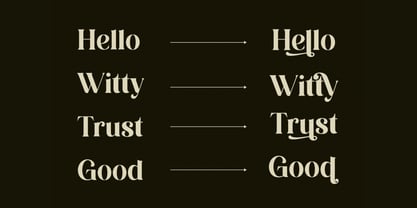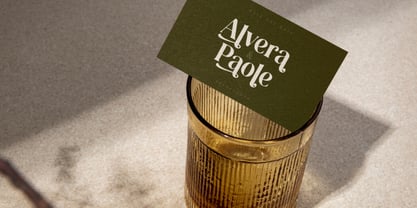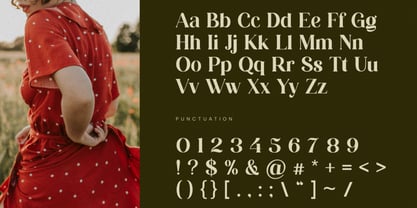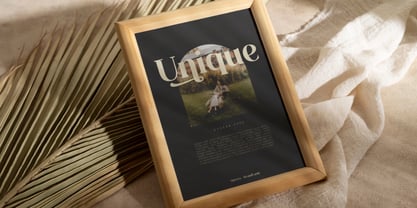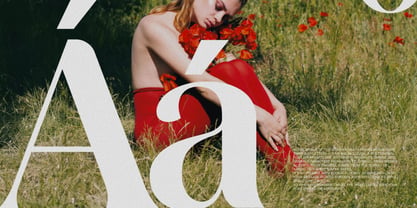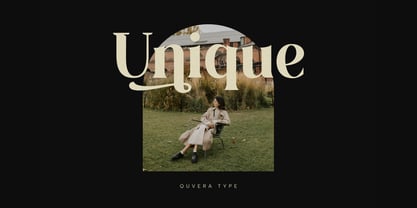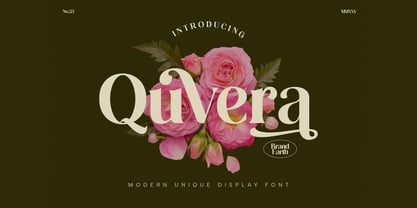
Quvera
by Brandearth
The Quvera Font Family was designed by Moch Rasjid Wiyono and published by Brandearth. Quvera contains 1 styles. More about this family
Quvera is a modern unique display serif crafted to bring expressive elegance and artistic distinction to contemporary design. With its refined high-contrast strokes, sculpted serifs, and beautifully curved swash alternates, Quvera blends classic sophistication with a bold creative personality. Quvera is perfect for luxury branding, fashion campaigns, beauty and skincare packaging, boutique logos, wedding invitations, lifestyle editorials, and high-end social media visuals. Its expressive alternates and stylish serif details make it ideal for brands that want to stand out with a refined yet artistic voice in both print and digital applications.
Designers: Moch Rasjid Wiyono
Foundry: Brandearth